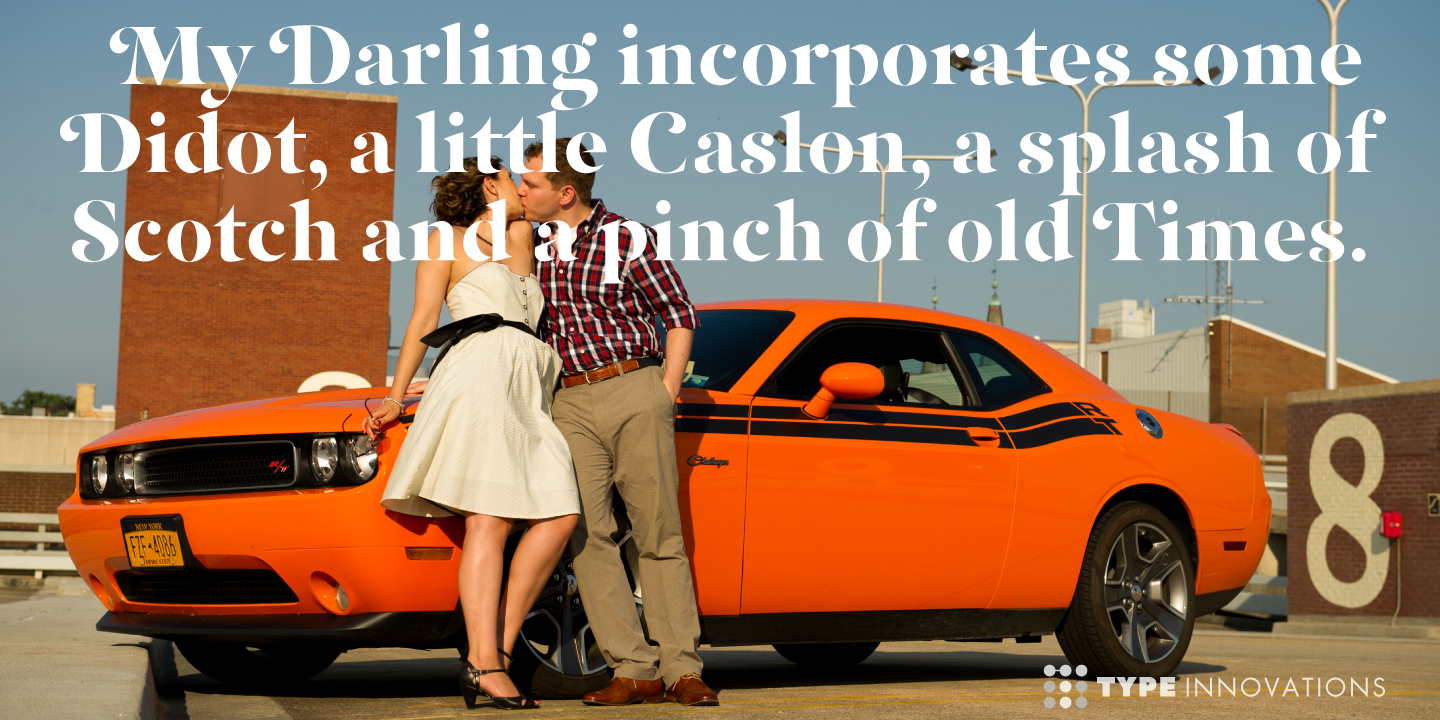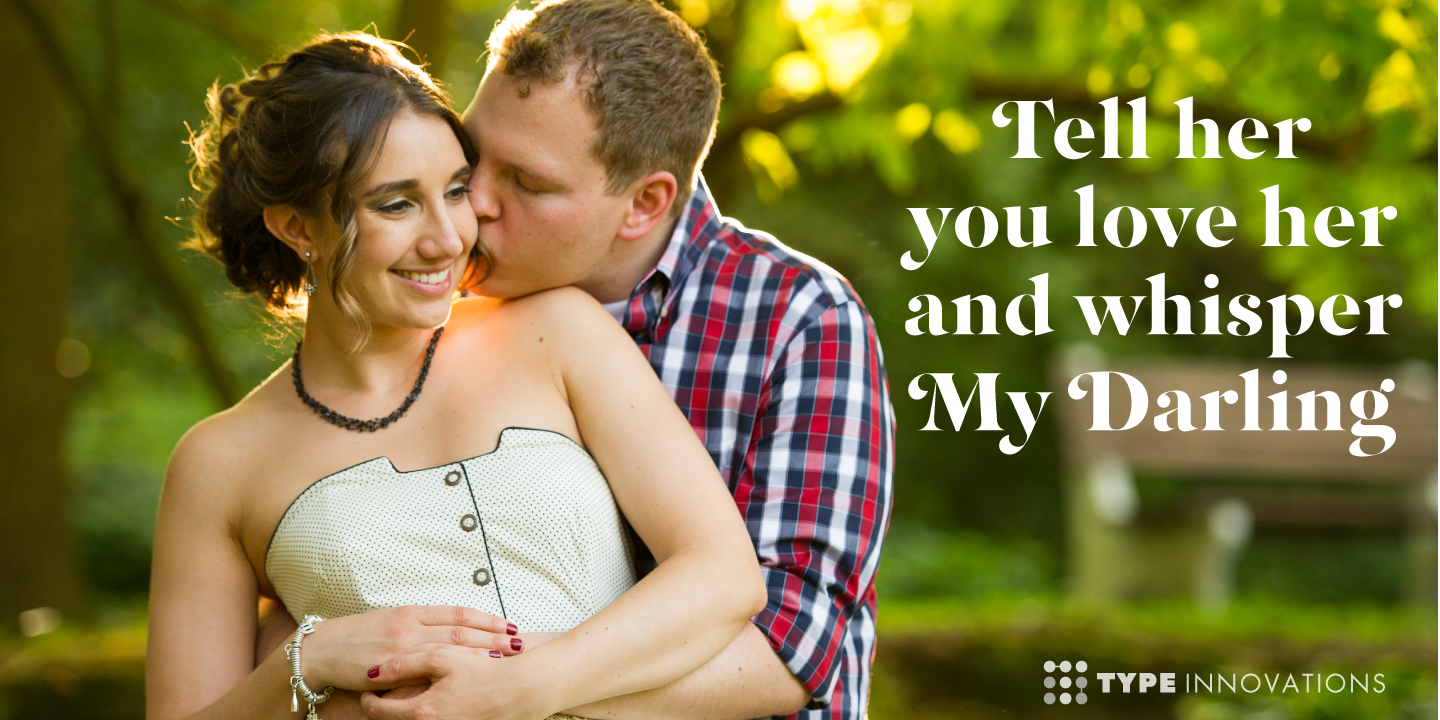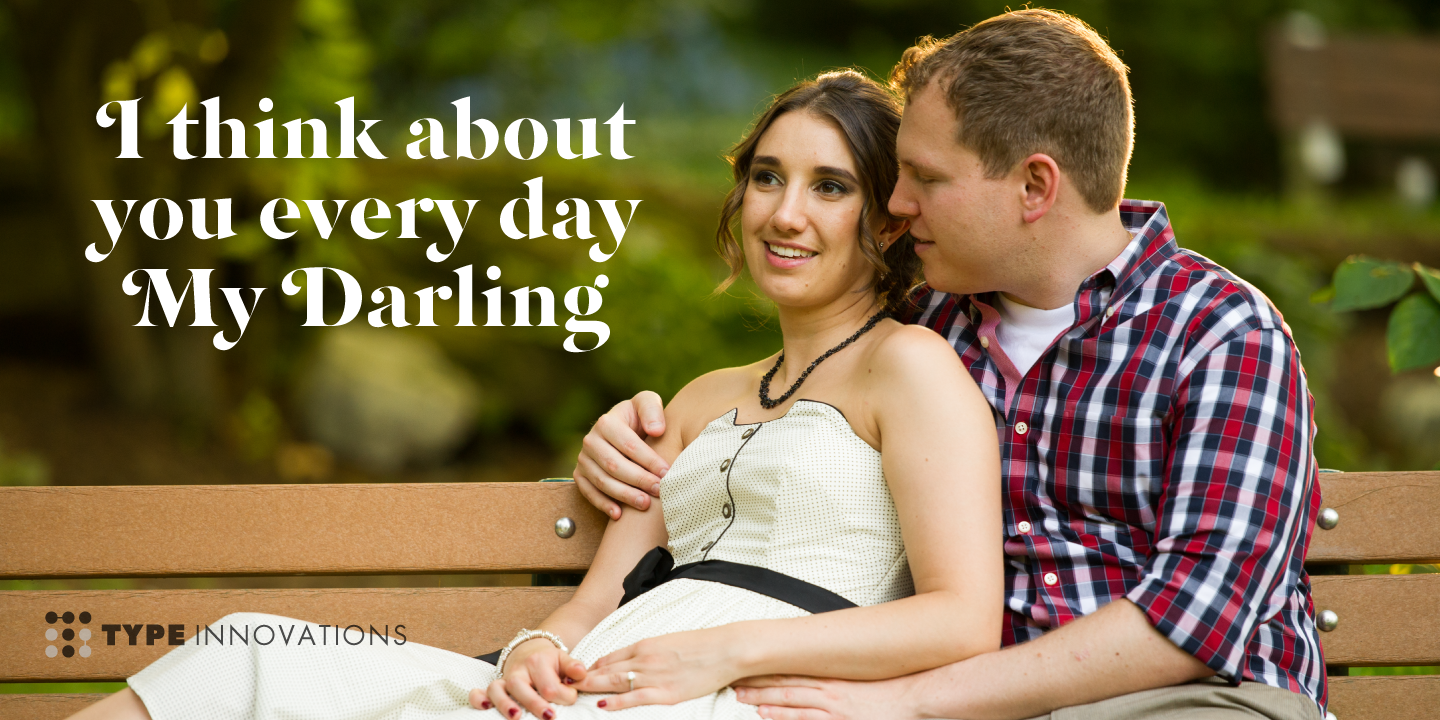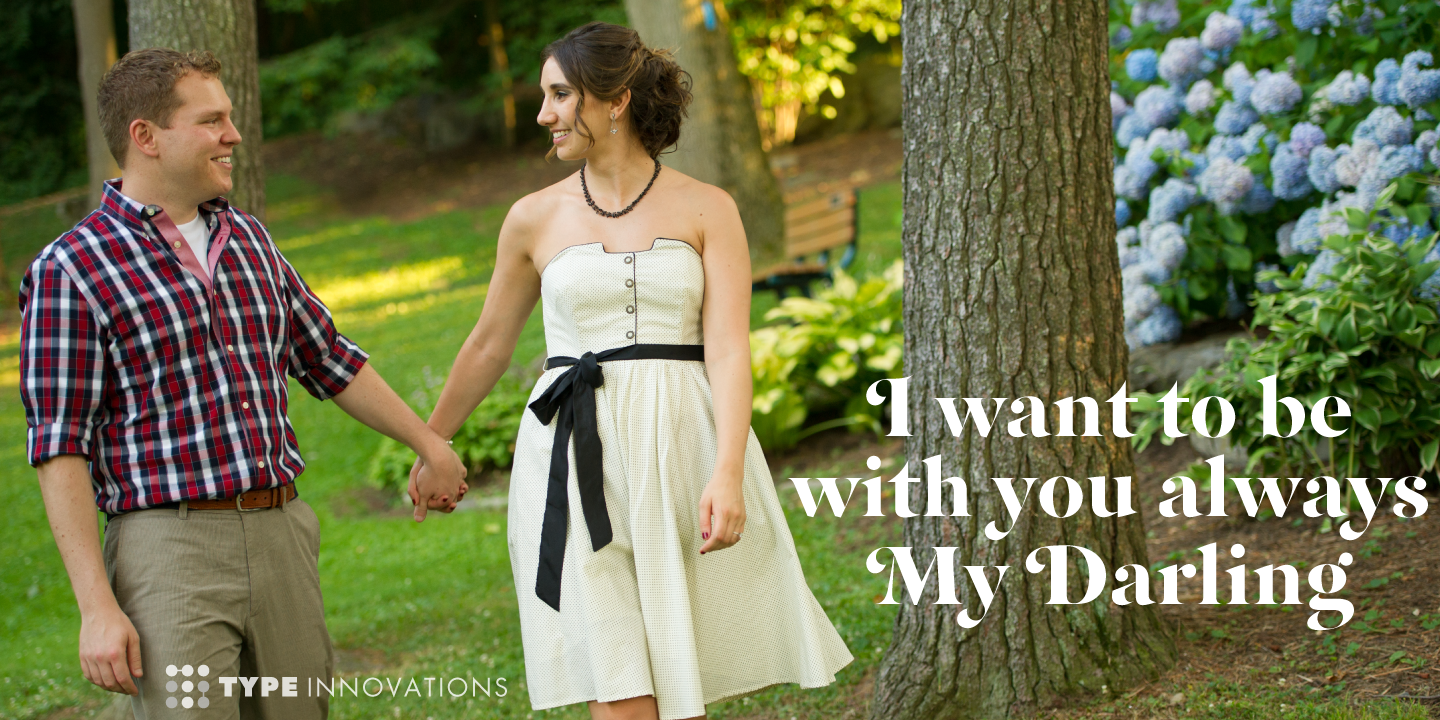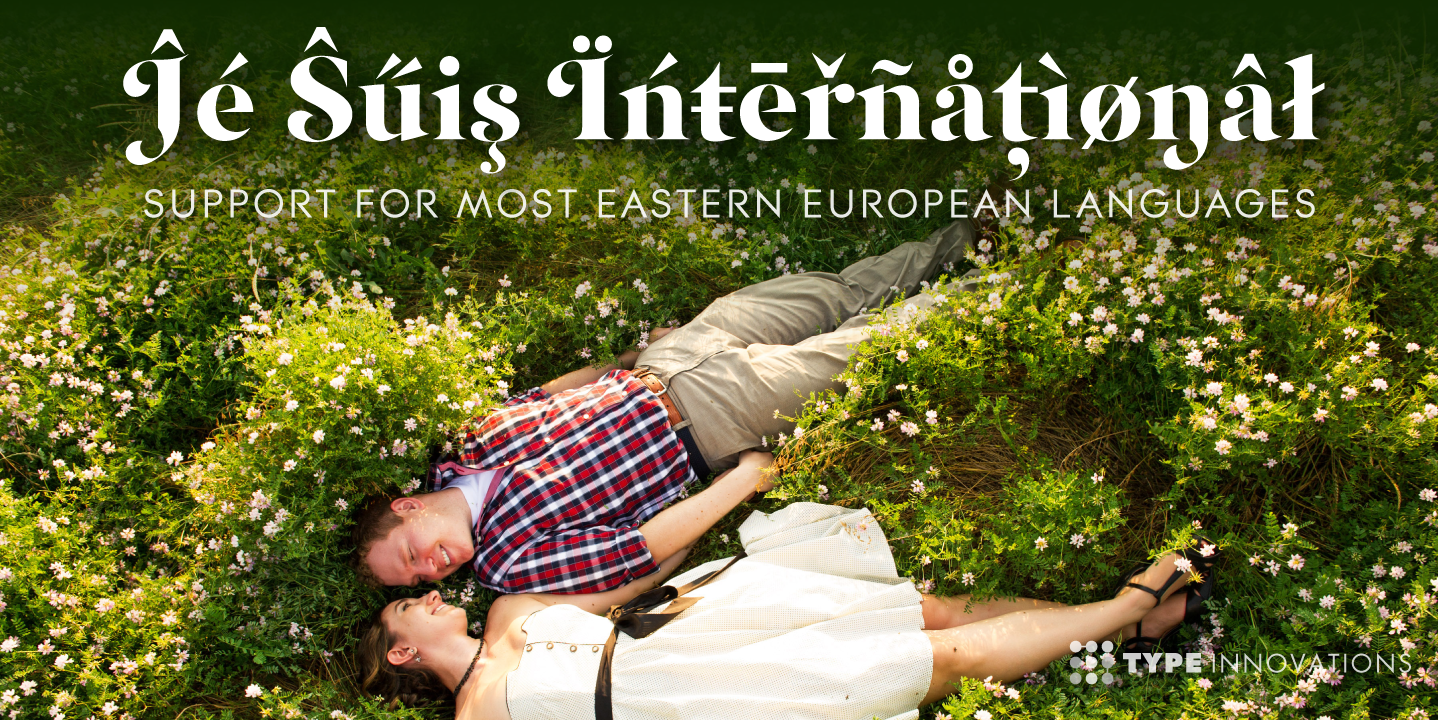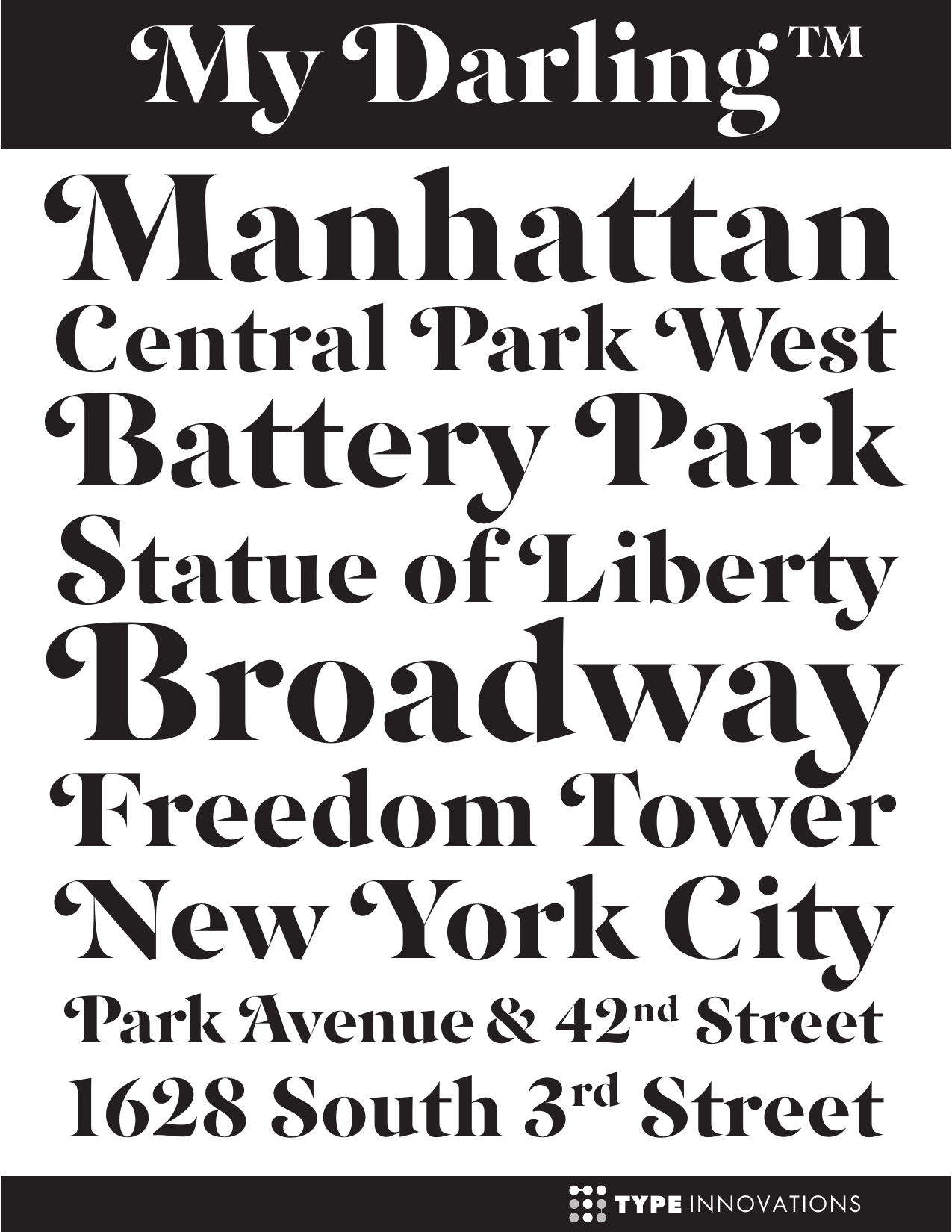
My Darling
'My Darling' is a stunning new typeface by Alex Kaczun. Inspired by the Didone shapes, 'My Darling' incorporates some Didot, a little Caslon, a splash of Scotch and a pinch of old Times. This unique display, with it's high-contrast strokes is playful, formal and just a bit 'sexy'. The swash capital terminals and lively curves, give this design a unique and distinctive look.